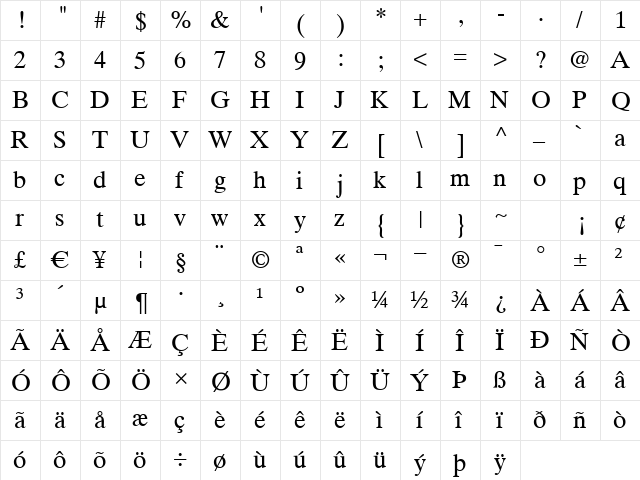
RomanEleven Regular
Design Context for RomanEleven Typeface
RomanEleven is a composed and adaptable typeface that performs quietly and consistently across a wide range of design contexts.